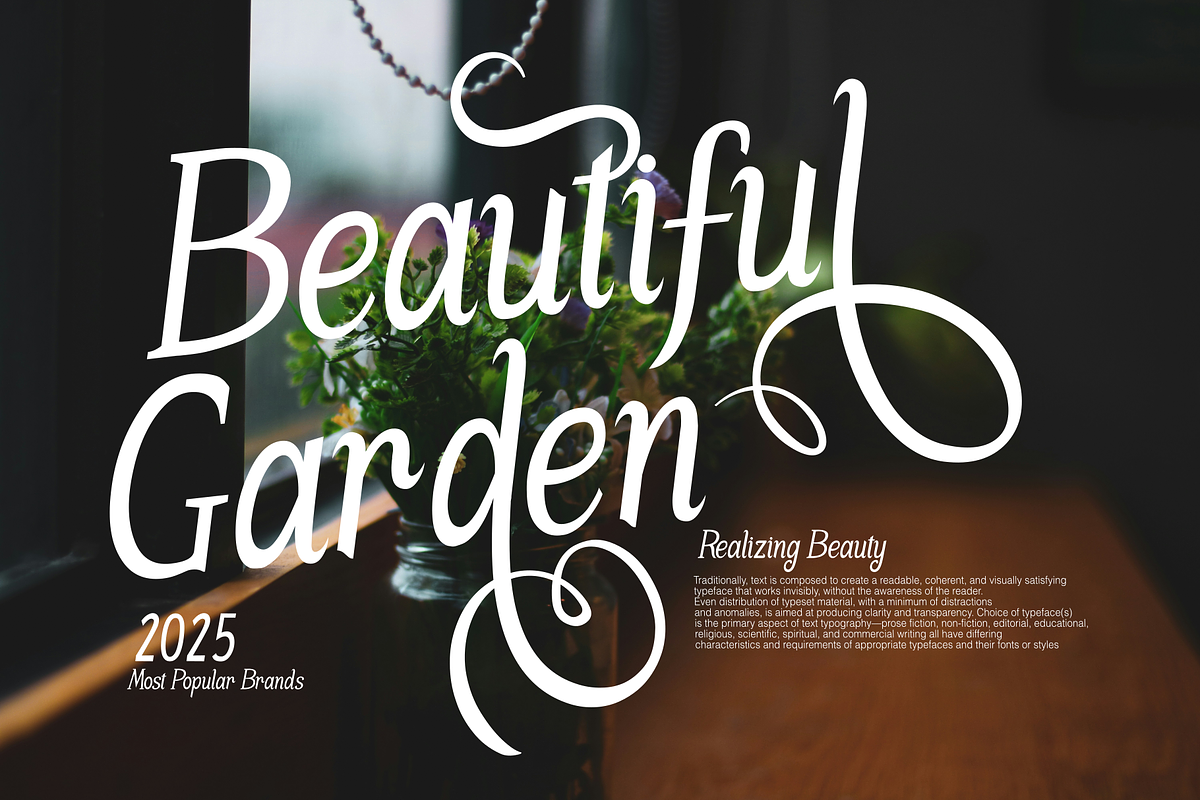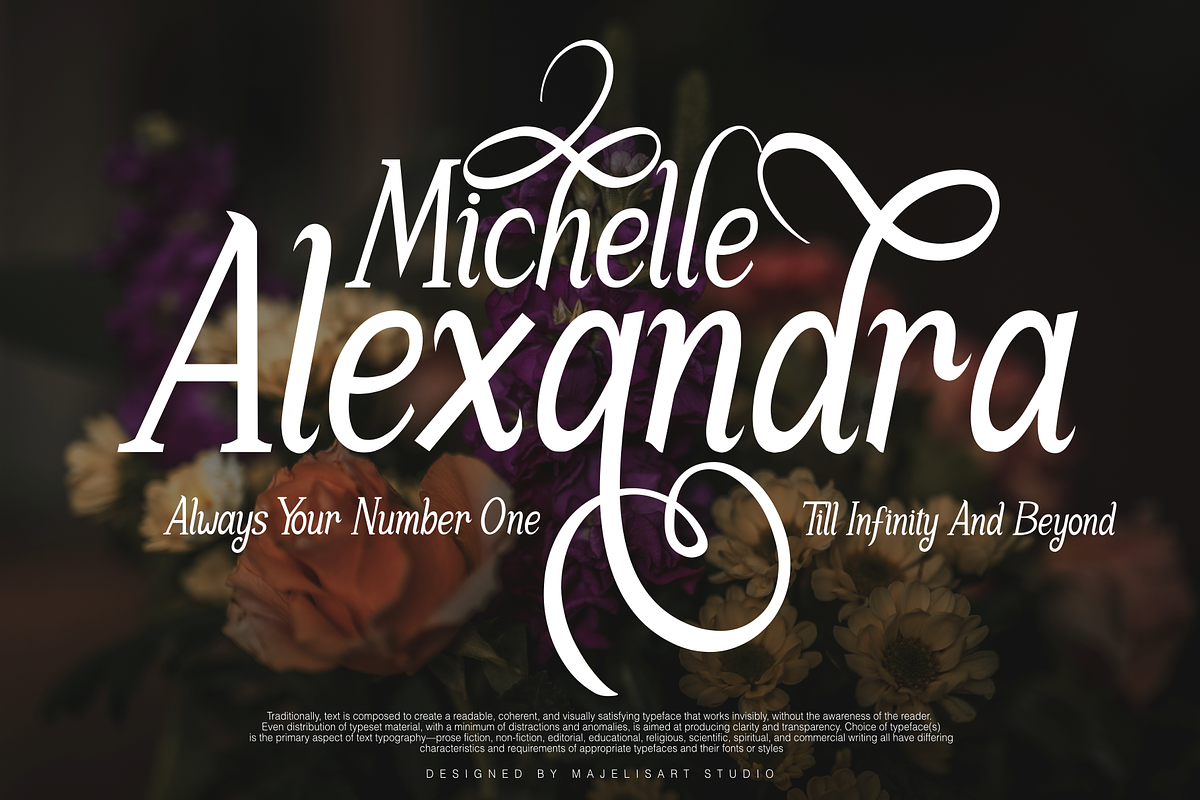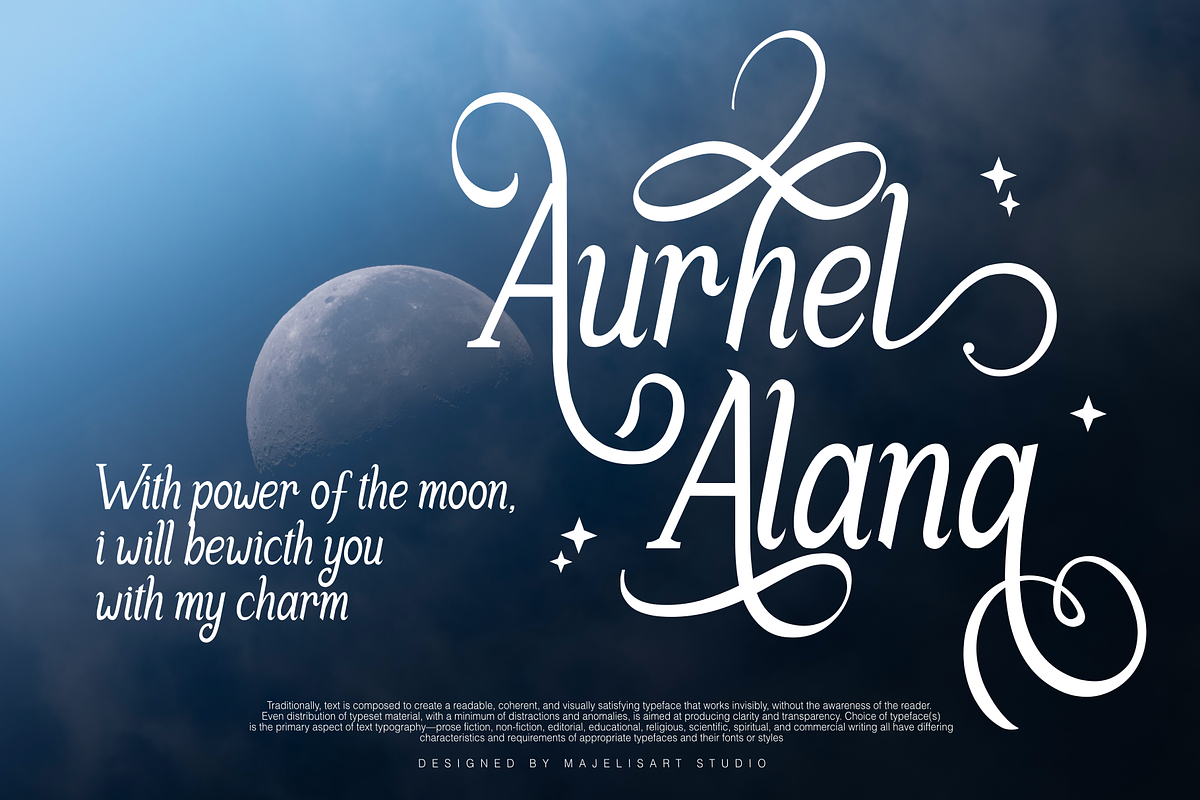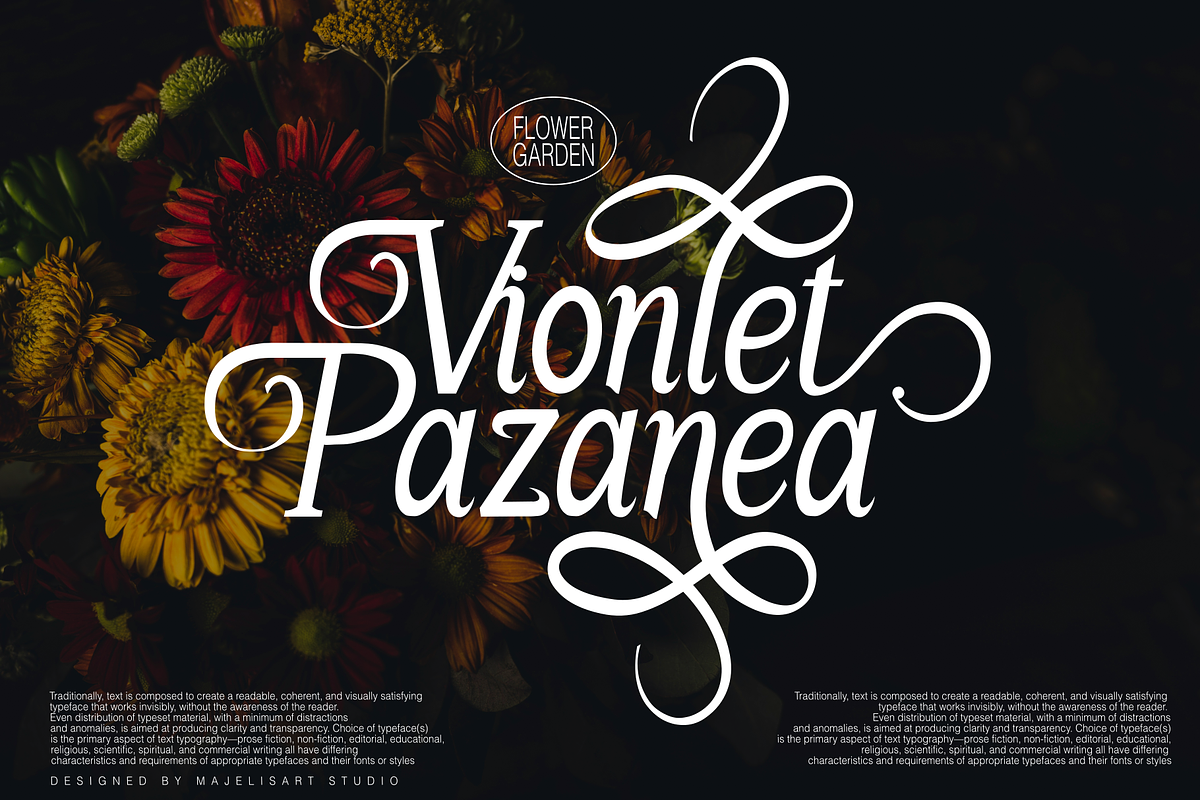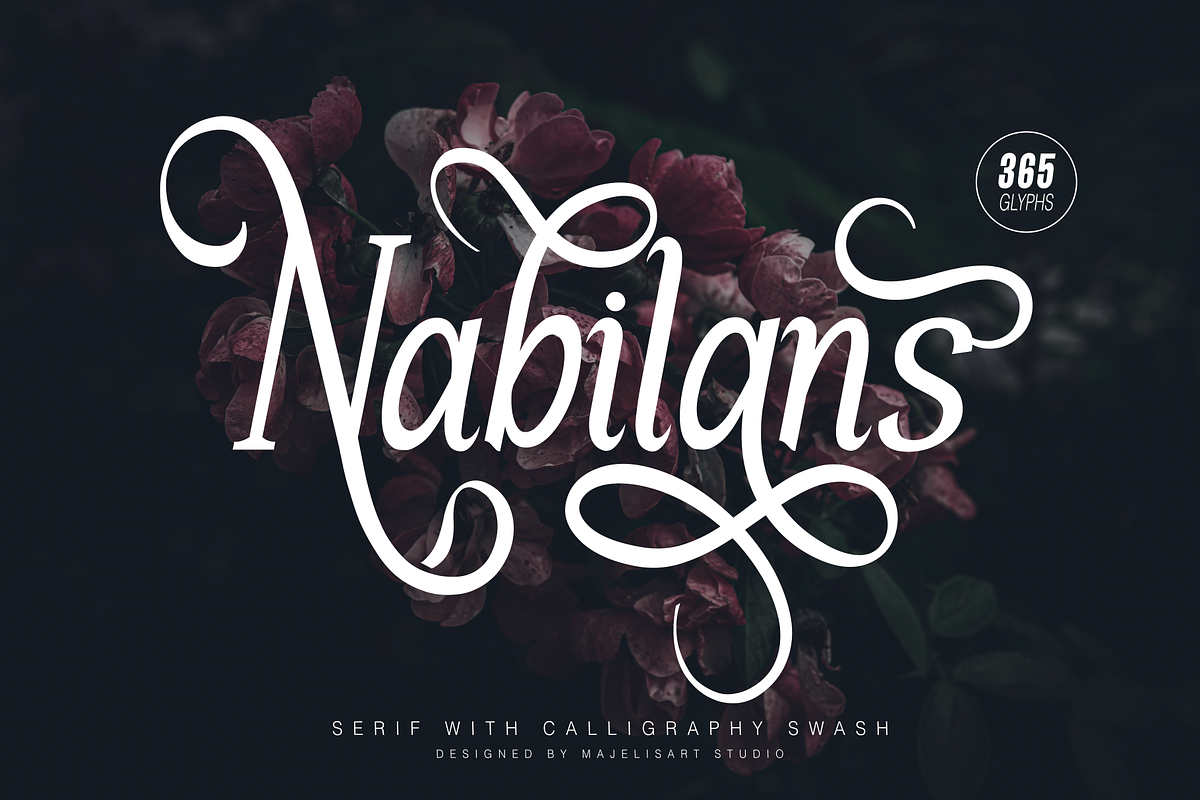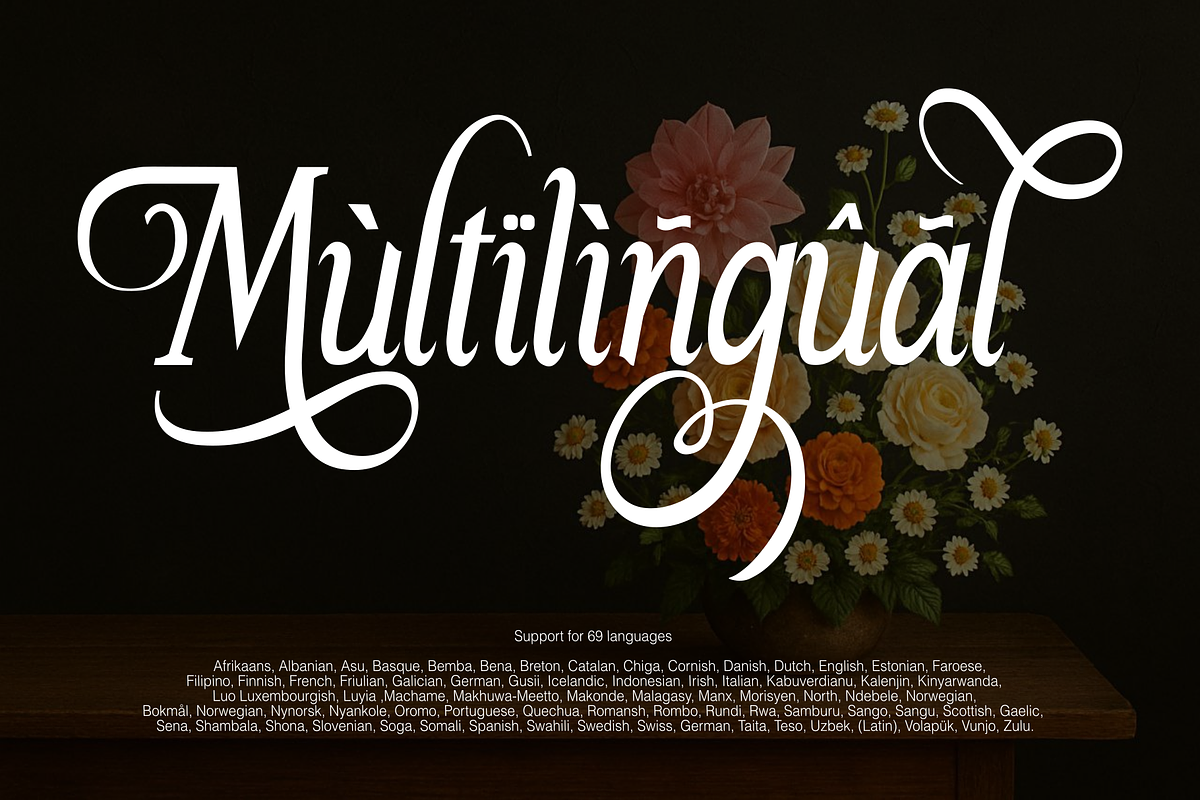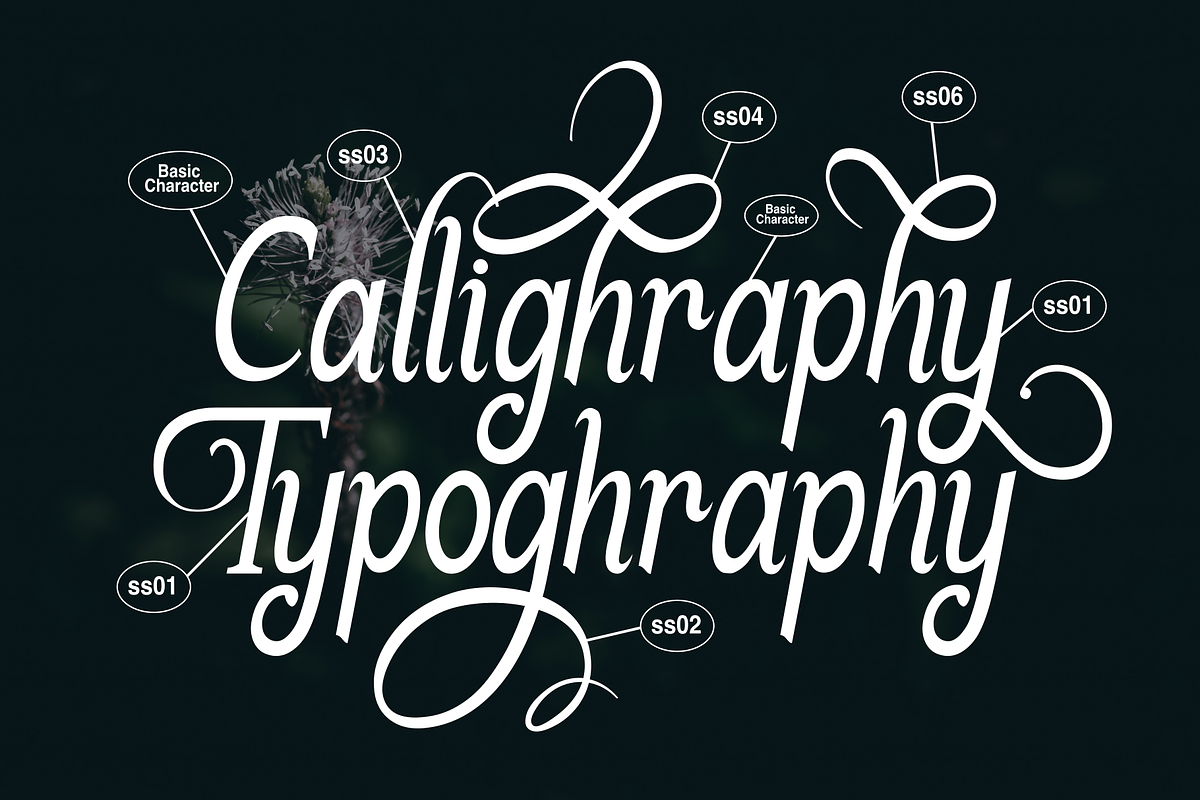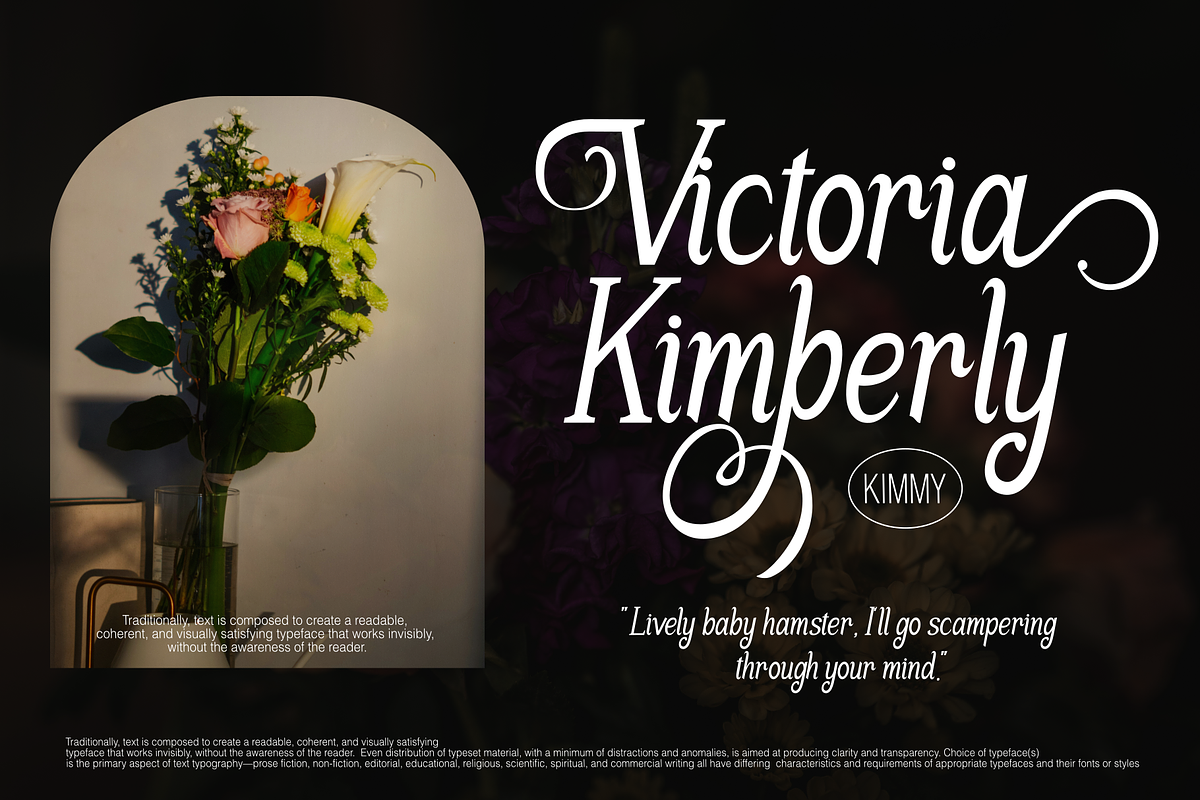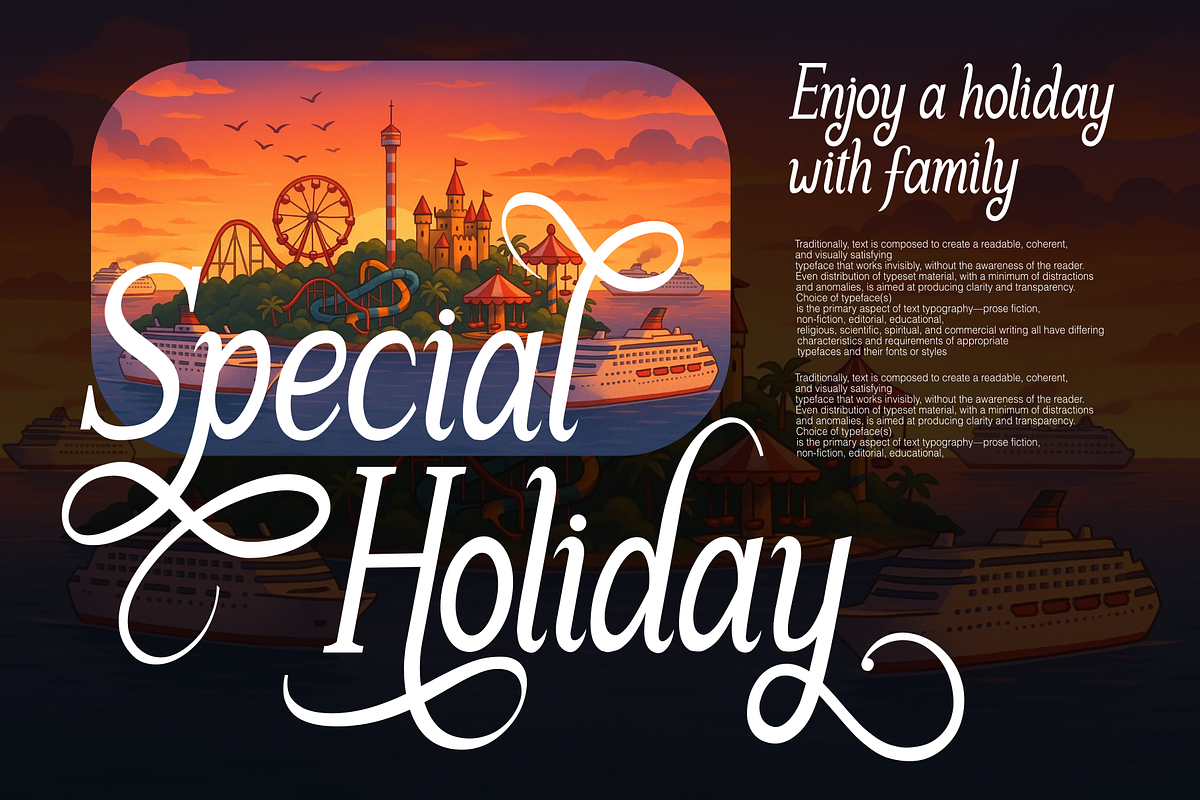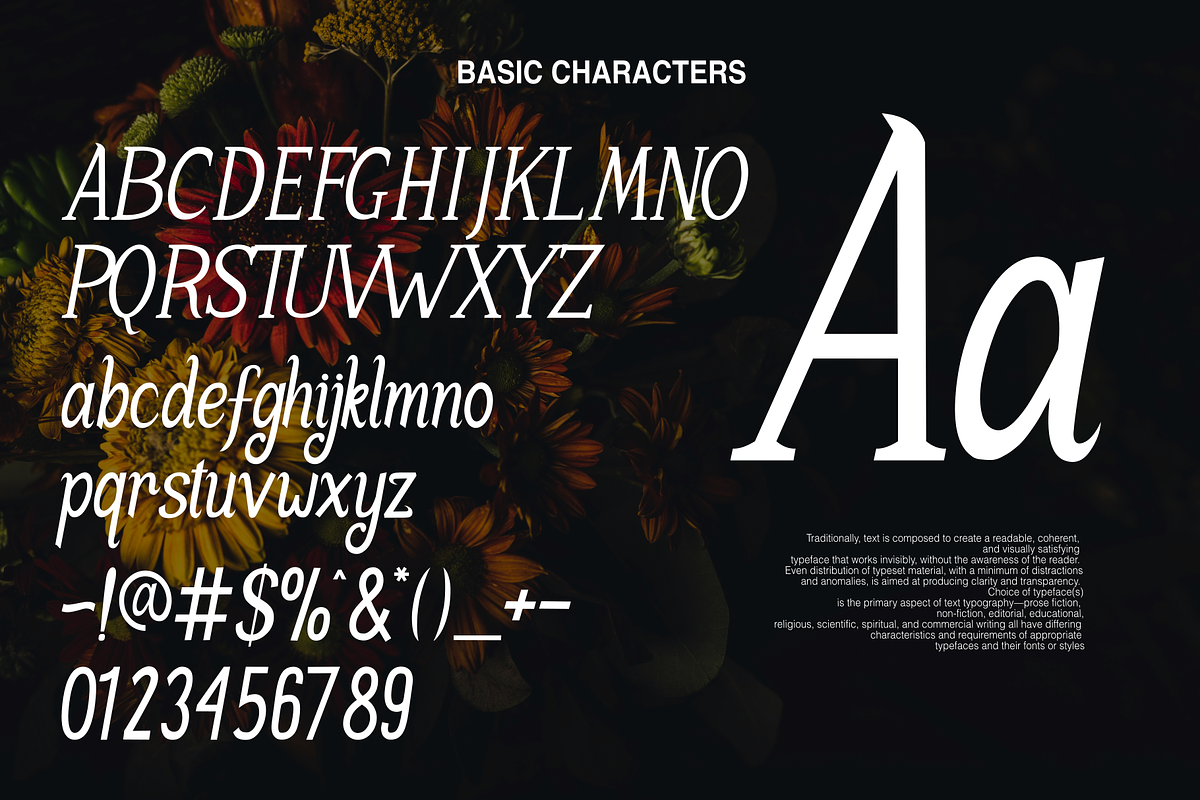
Nabilans
Serif is a blend of serif and calligraphic swash fonts. We crafted it with elegant tail flourishes on select letters, inspired by calligraphy, giving the serif a beautiful decorative touch.
This font is perfect for perfume or cosmetic branding, book covers, wedding invitations, and more. Enjoy our font!
- Uppercase and lowercase letters
- Numerals and punctuation
- Alternate glyphs